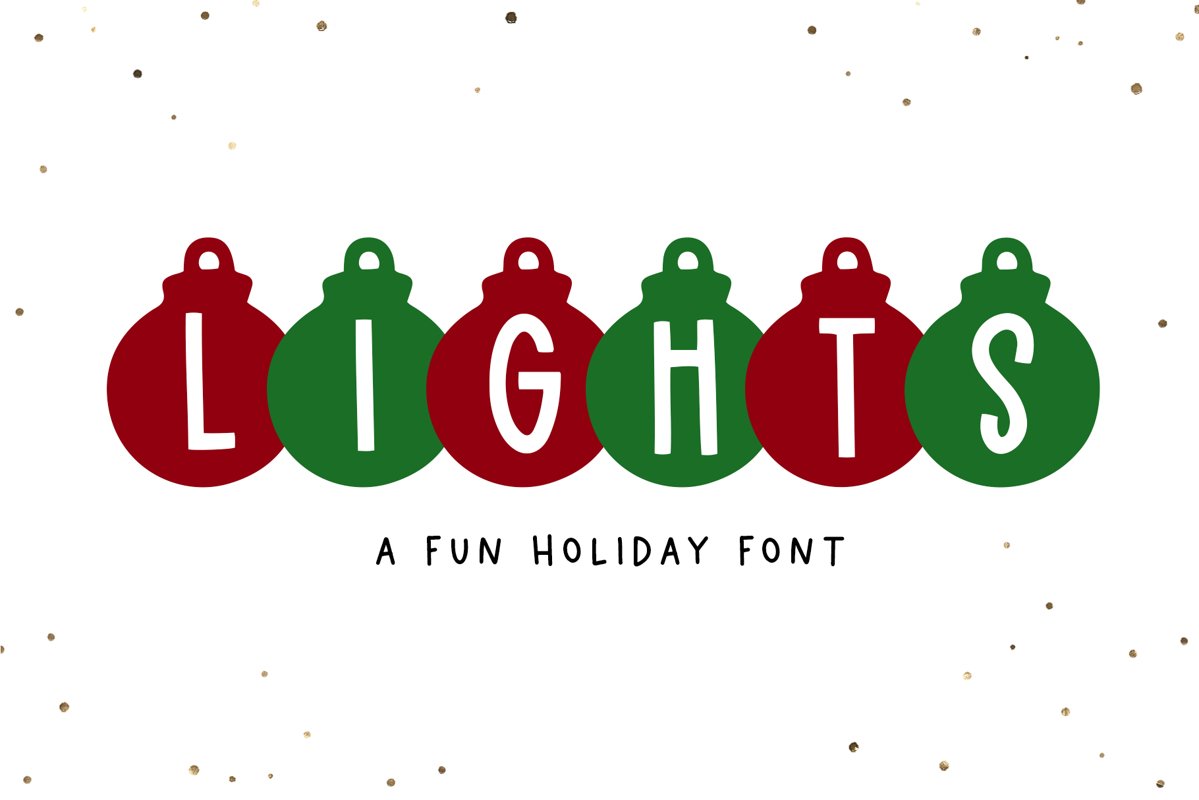
Lights is a fun christmas font with ornaments/bulbs.
This font is perfect for shirt designs, holiday decor, monograms, branding, children's designs, svg designs, blogs, logos, invitations and more!